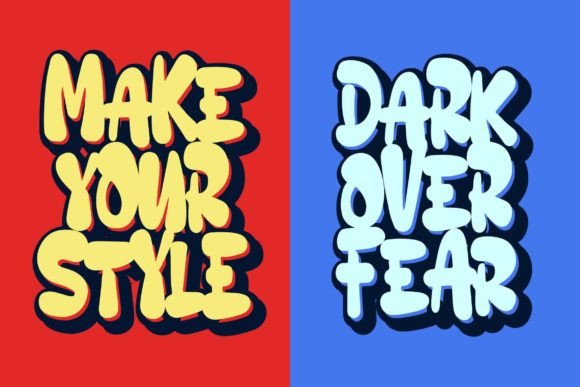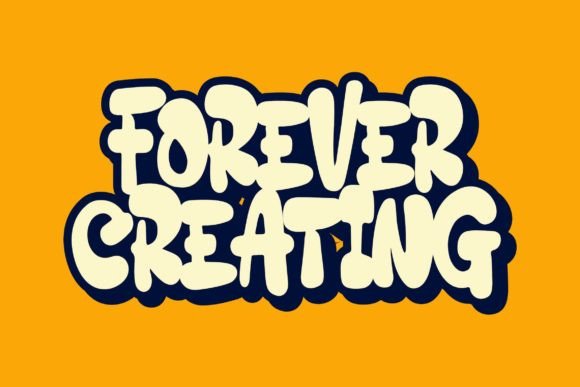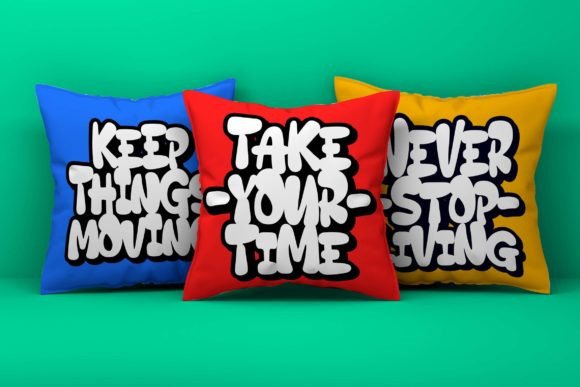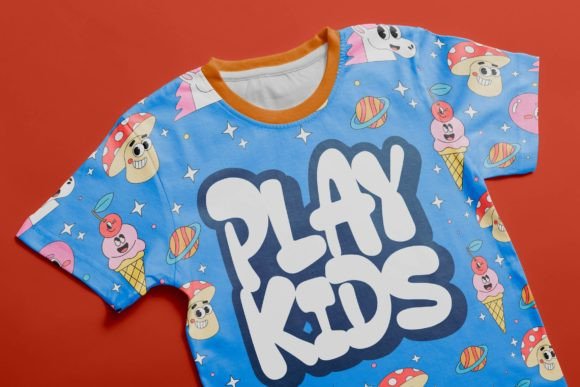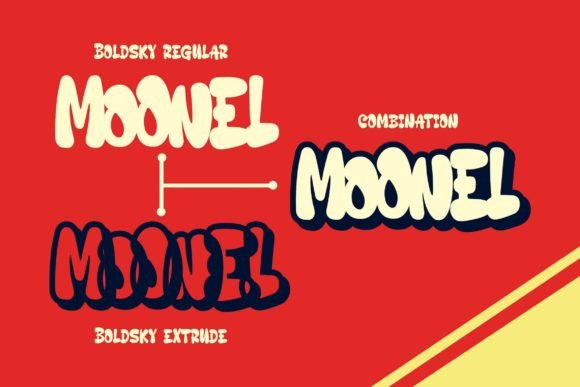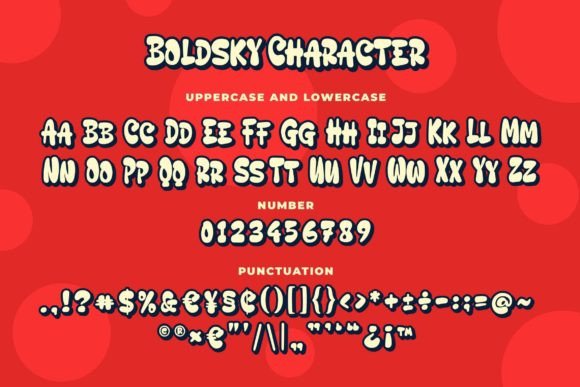
Introduction to Boldsky Font
Boldsky is a font that radiates funky and whimsical vibes.
Its playful letterforms dance with a joyful rhythm, creating a sense of fun and excitement With bold strokes and quirky details, Boldsky adds a touch of whimsy to any design project.
Key Features of Boldsky Font